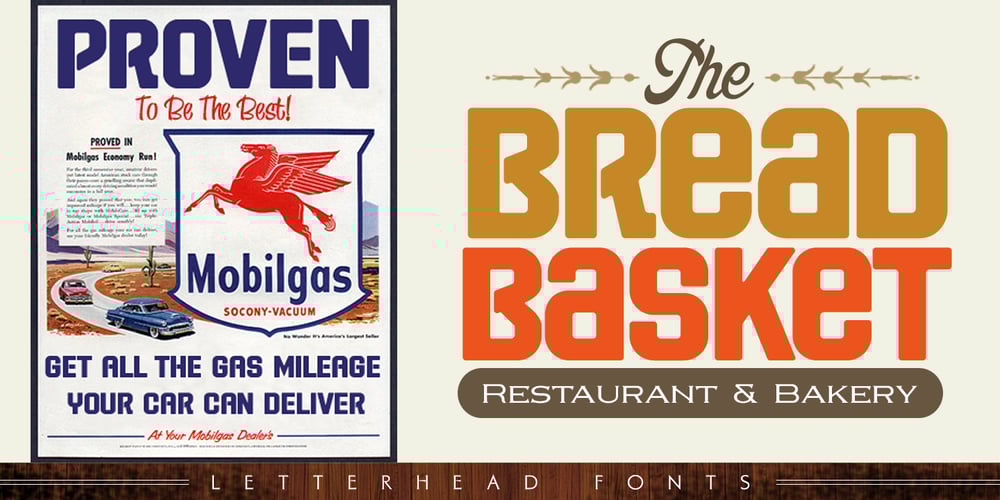
LHF Advertisers Square
LHF Advertisers Square font
LHF Advertisers Square Font Family was designed by published by Letterhead Fonts. LHF Advertisers Square contains 1 styles and family package options. This easy to read, versatile letterstyle was inspired by Al Imelli’s “Advertiser’s Square” (circa 1920’s). Modifications were made and alternates added.